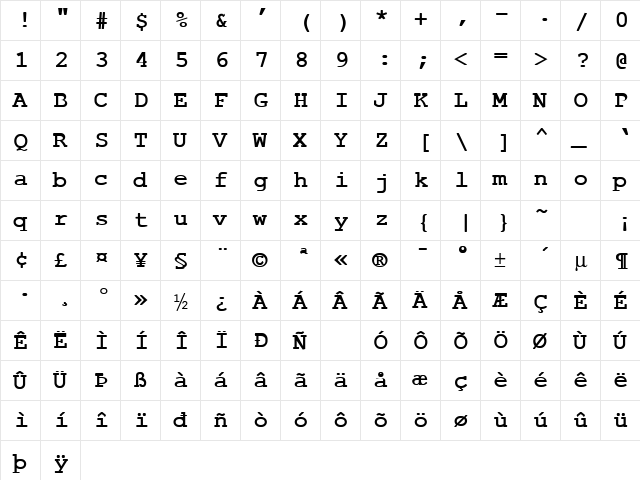
CobbBold Normal Font Preview
CobbBold Normal
Design Context for CobbBold Typeface
CobbBold is a composed and adaptable typeface that performs quietly and consistently across a wide range of design contexts. The heavy weight commands attention and anchors typographic hierarchies.